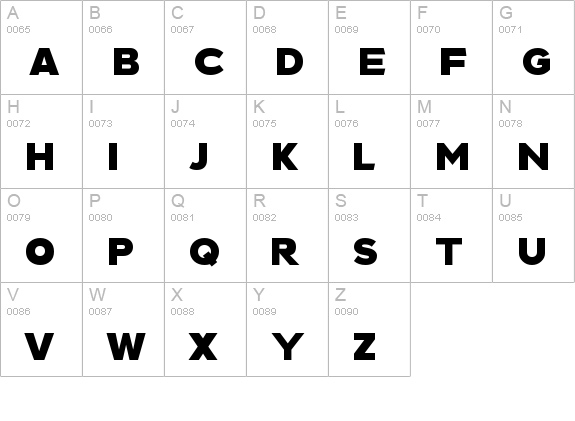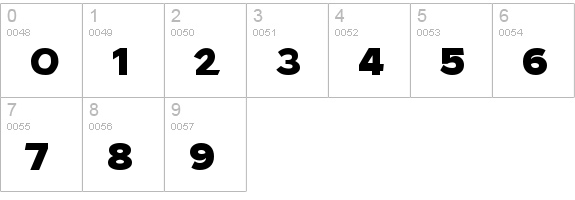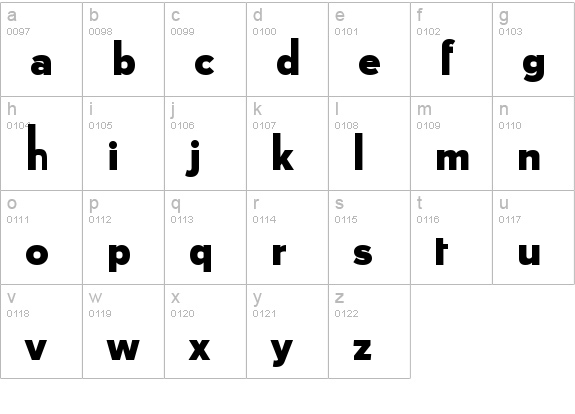
20th Century Fox 2009 Black And White Husky Font is a maximum-weight, dramatic variant in the 20th typeface family \xE2\x80\x94 well suited to maximum-impact headlines, posters, and packaging.
The 20th Century Fox 2009 Black And White Husky Font is a captivating and stylish font that exudes elegance and sophistication. With its striking black and white color scheme and unique husky-inspired design, this font is sure to make a bold statement in any project. Whether you're looking to add a touch of class to your branding or create eye-catching headlines, this font is the perfect choice.